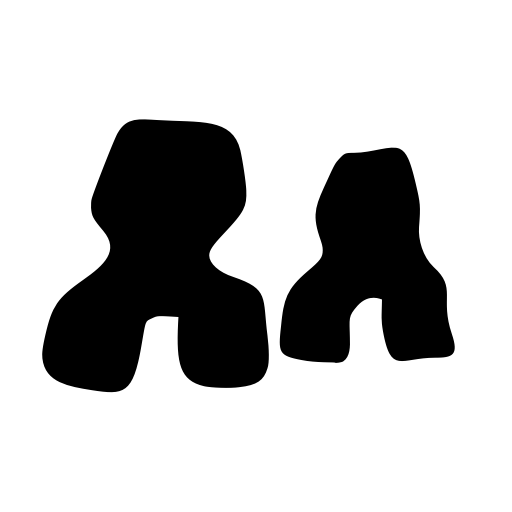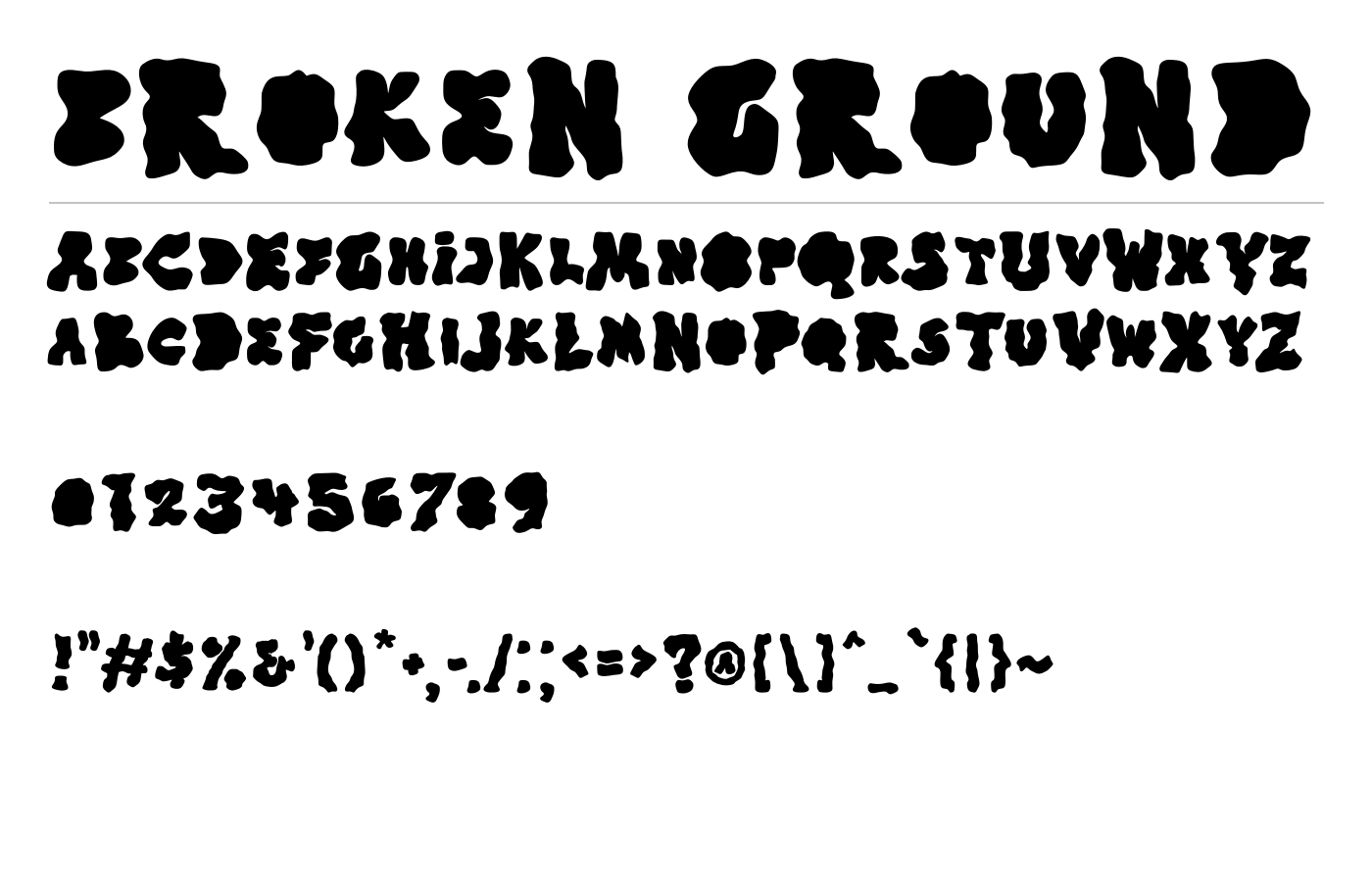
Broken Ground is a bold, playful display font with an organic, irregular shape that gives it a hand-crafted, almost melted appearance. Its chunky, uneven letterforms and high contrast between thick and thin areas make it ideal for eye-catching headlines, posters, or creative branding that aims to stand out with a fun and unconventional vibe. This font works best in contexts where a lively, informal, and artistic personality is desired.